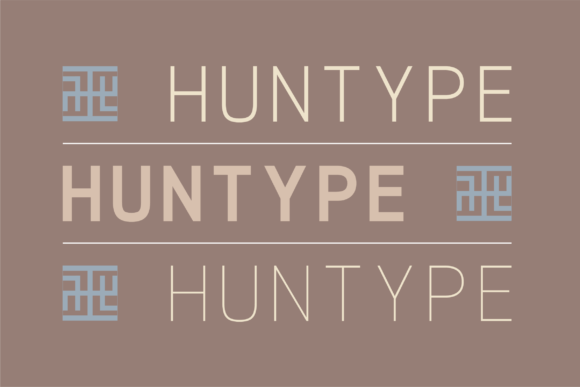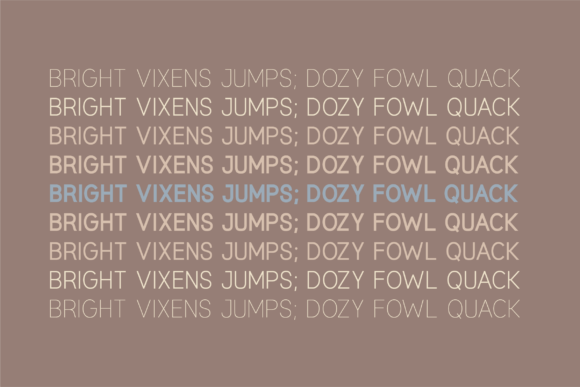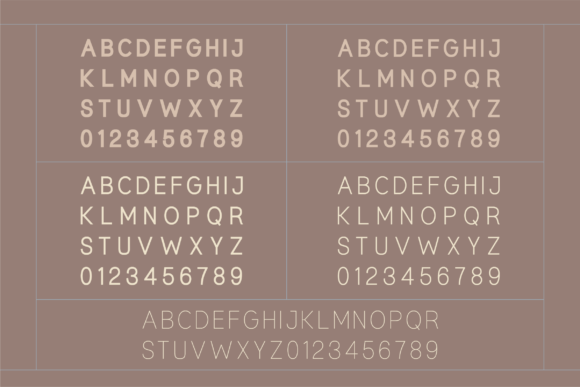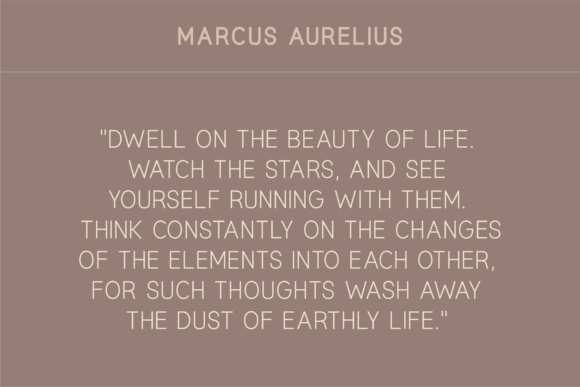
Introducing Beetroot Font: Elevate Your Designs with Sophistication and Style
In the world of typography, fonts play a crucial role in conveying messages, evoking emotions, and setting the tone for creative projects. For designers and content creators seeking a unique and versatile font, Beetroot Font offers a wide range of creative possibilities, making it the perfect choice for various design applications. With its seamless blend of sophistication and contemporary style, Beetroot Font ensures your projects will shine with distinction.
The Art of Beetroot Font
Beetroot Font is a thoughtfully crafted font family designed to cater to the diverse needs of designers and crafters. Its elegant and refined aesthetic makes it an excellent choice for projects that require a touch of sophistication. The font’s unique characteristics, such as its subtle curves and precise lines, create a visually appealing effect that captures the attention of viewers.
Key Features of Beetroot Font
- Versatility: Beetroot Font offers a wide range of creative possibilities, making it suitable for various design applications, from elegant branding and packaging to stylish digital content.
- Sophistication: The font’s refined aesthetic and elegant curves bring a touch of sophistication to any design project.
- Contemporary Style: Beetroot Font seamlessly blends traditional typography with modern design elements, ensuring your projects look fresh and up-to-date.
- Legibility: The font’s precise lines and carefully crafted letterforms ensure excellent legibility, making it perfect for both headings and body text.
Creative Possibilities with Beetroot Font
Beetroot Font’s versatility makes it an excellent choice for various design projects, including:
- Branding and Identity: Create a lasting impression with Beetroot Font’s elegant and sophisticated aesthetic.
- Packaging Design: Add a touch of refinement to your packaging designs with Beetroot Font’s precise lines and subtle curves.
- Digital Content: Elevate your digital content, such as blog posts, social media graphics, and website headers, with Beetroot Font’s contemporary style.
- Print Materials: Use Beetroot Font to create stunning print materials, including brochures, flyers, and business cards.
Tips for Using Beetroot Font
To get the most out of Beetroot Font, consider the following tips:
- Experiment with Font Sizes: Beetroot Font looks great in various font sizes, from large headings to smaller body text.
- Pair with Other Fonts: Combine Beetroot Font with other fonts to create a unique and visually appealing typography.
- Play with Colors: Beetroot Font works well with a wide range of colors, so don’t be afraid to experiment and find the perfect combination.
Beetroot Font offers a unique blend of sophistication and contemporary style, making it an excellent choice for designers and content creators seeking a versatile and elegant font. With its wide range of creative possibilities, Beetroot Font is perfect for various design applications, from branding and packaging to digital content and print materials. Whether you’re aiming for a subtle and delicate touch or a bold and impactful statement, Beetroot Font ensures your projects will shine with distinction.